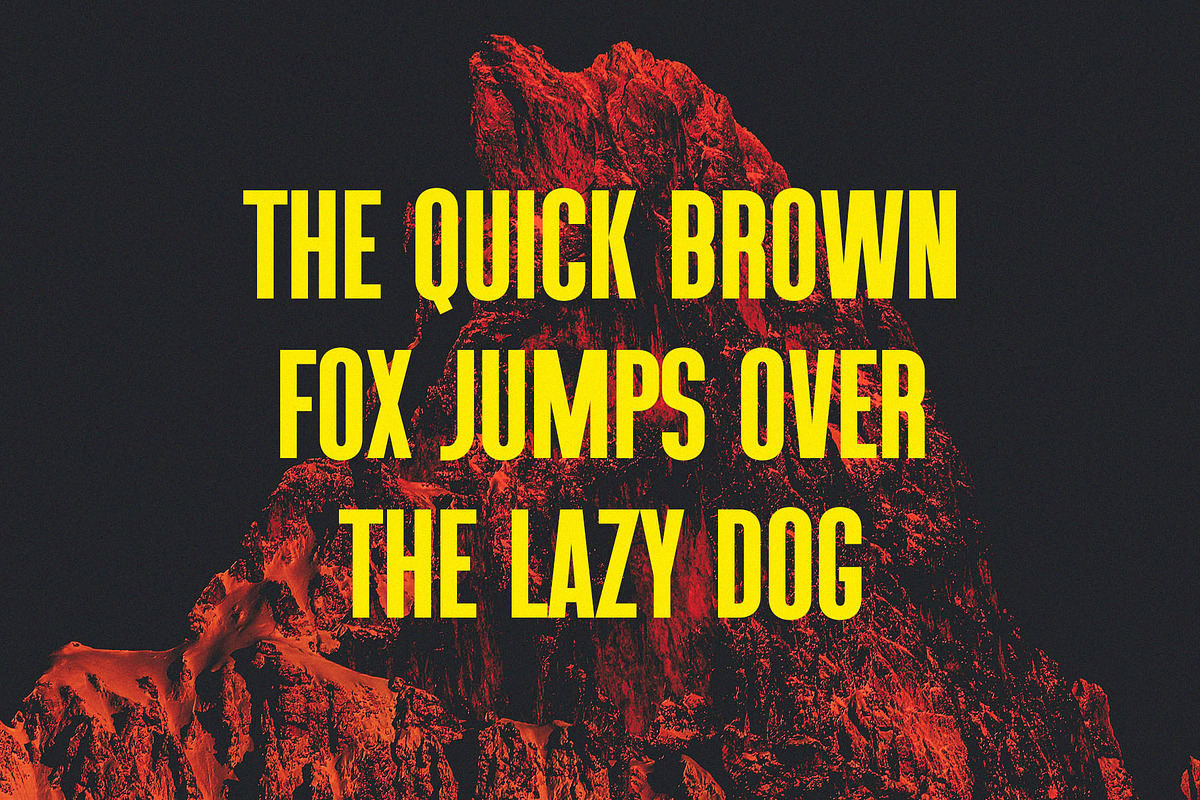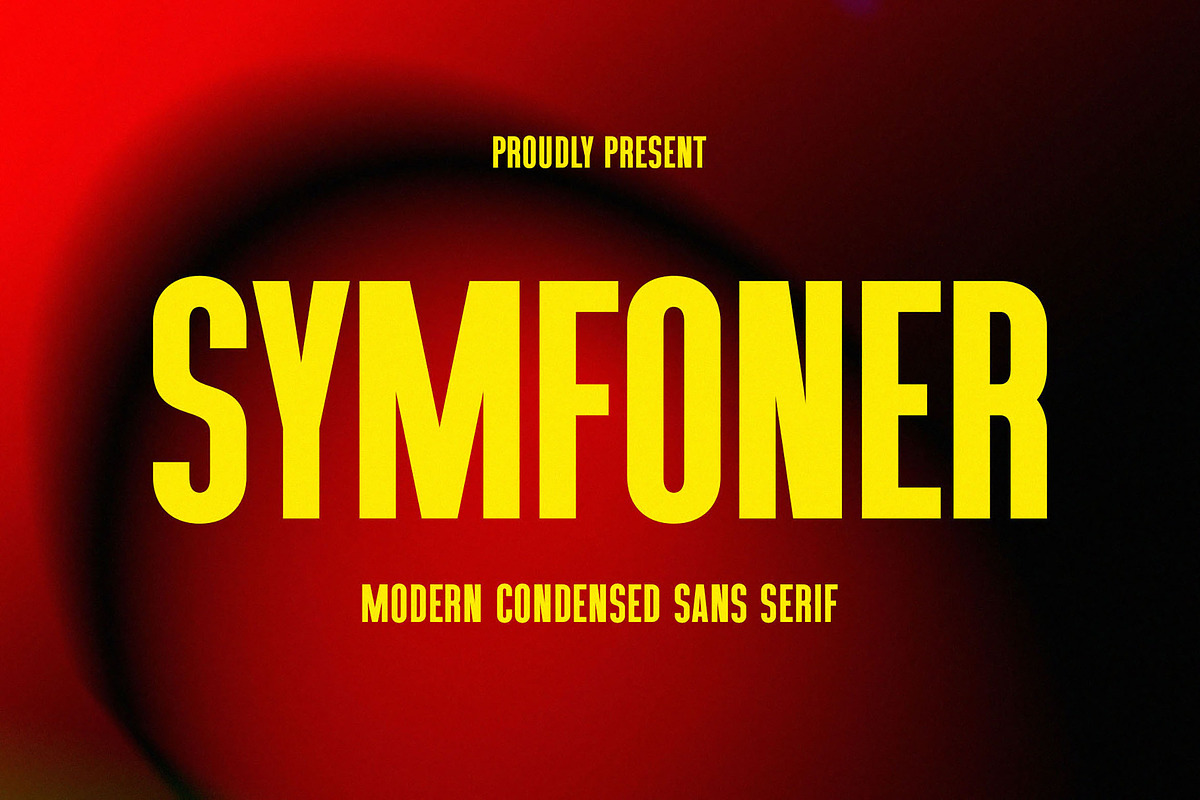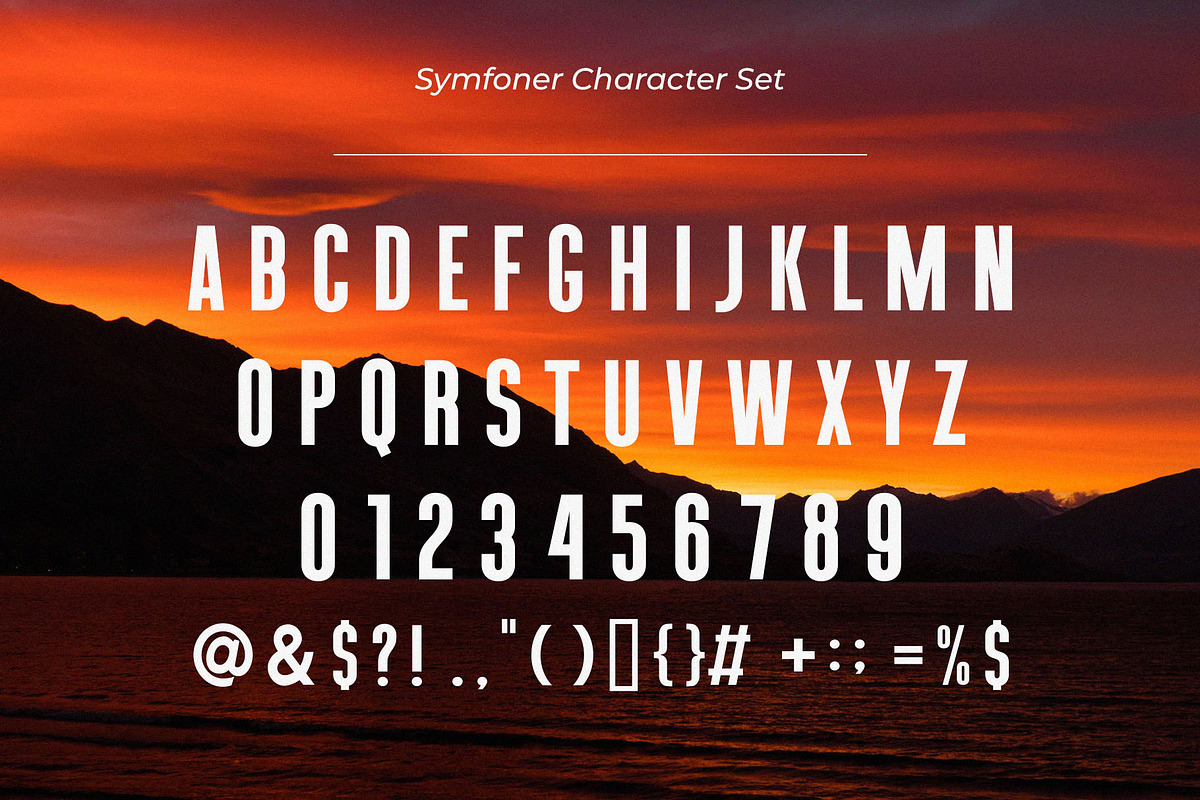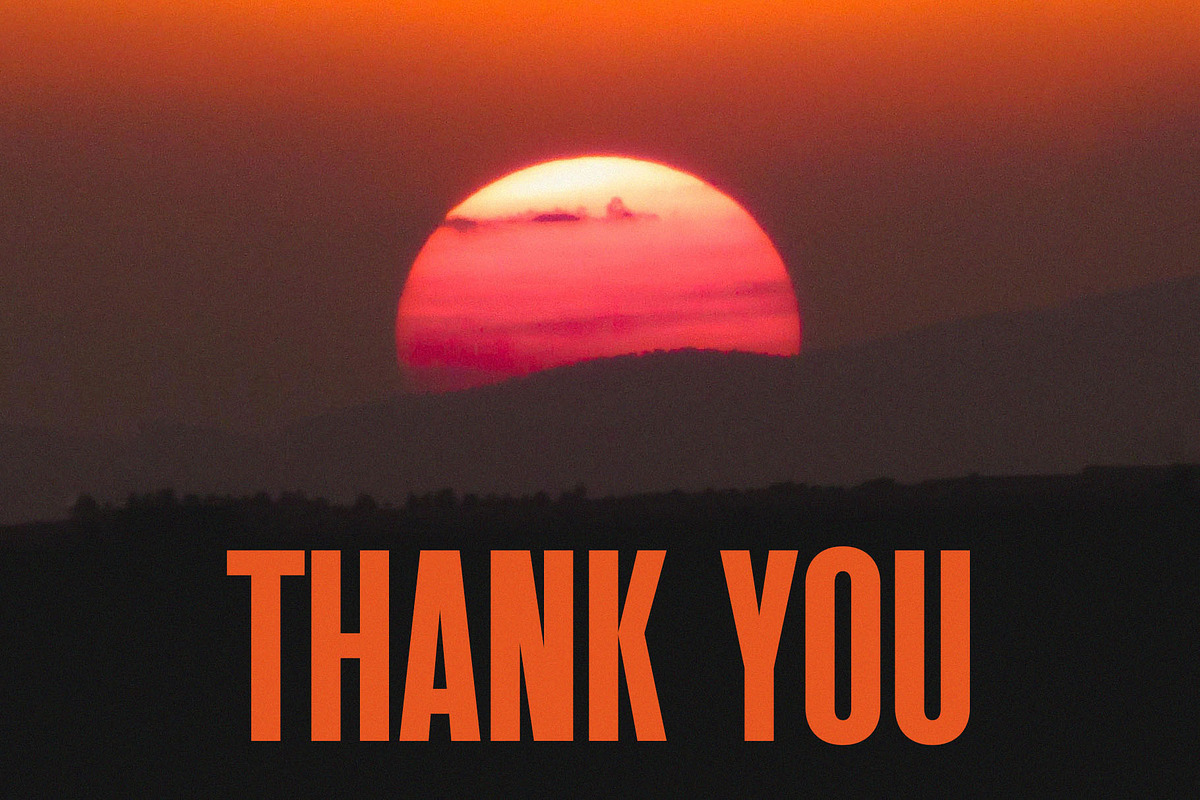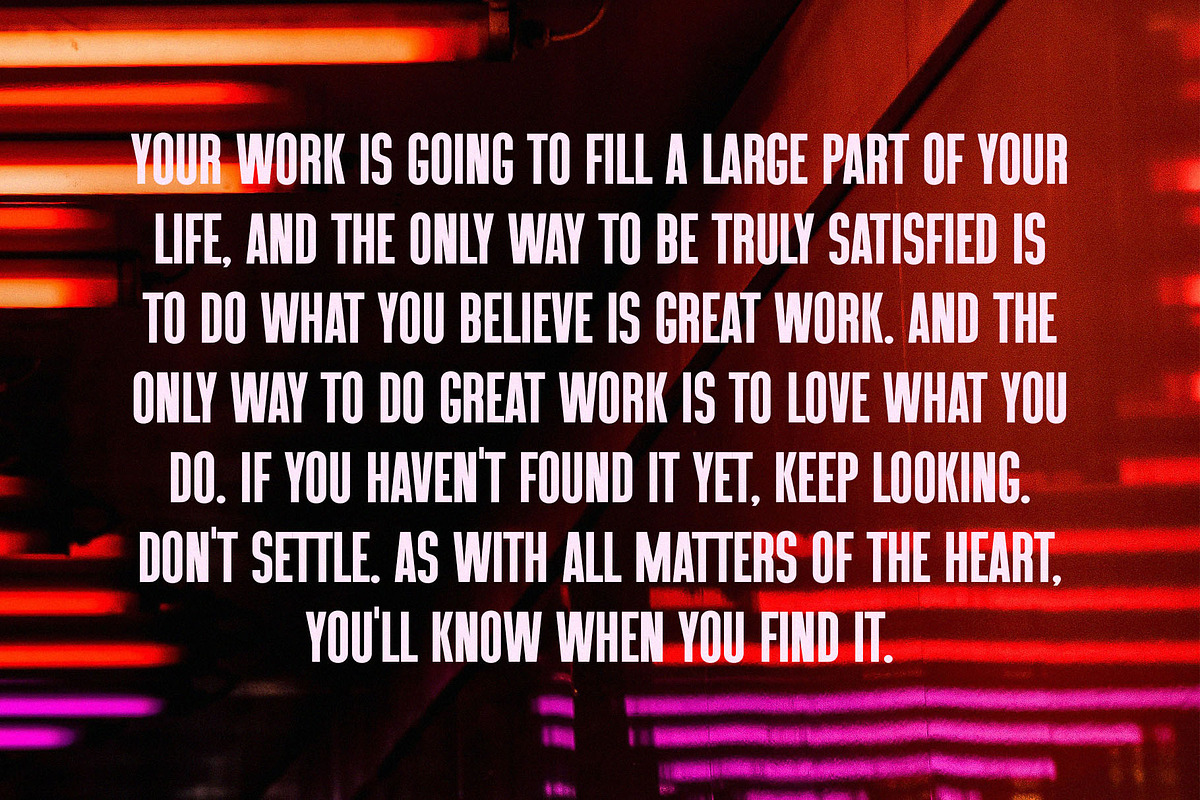
Symfoner - Modern Condensed Sans
Introducing our new Symfoner, modern sans serif font with elegant style this is perfect for branding, logos, invitation, magazines, product packaging and more.